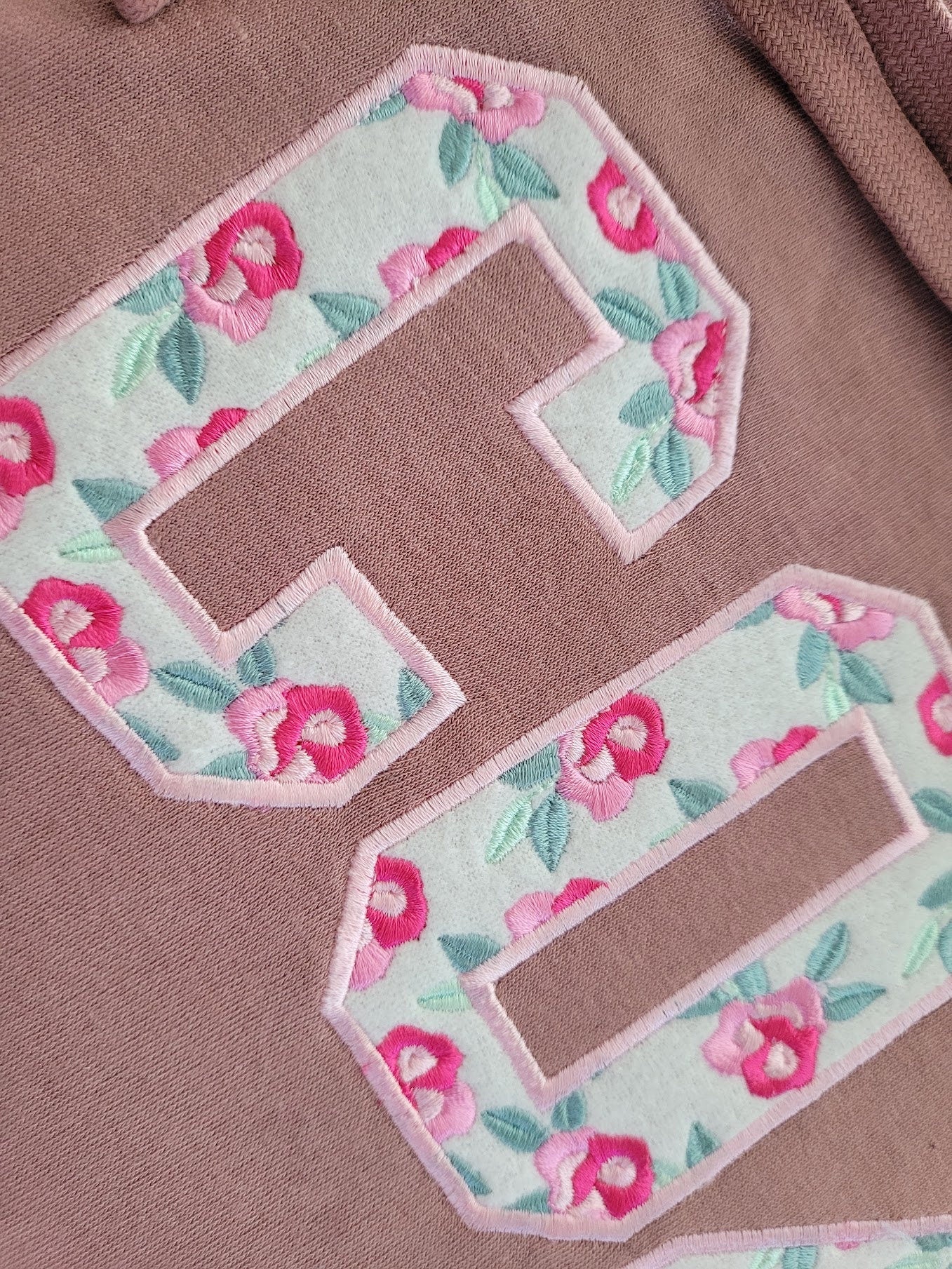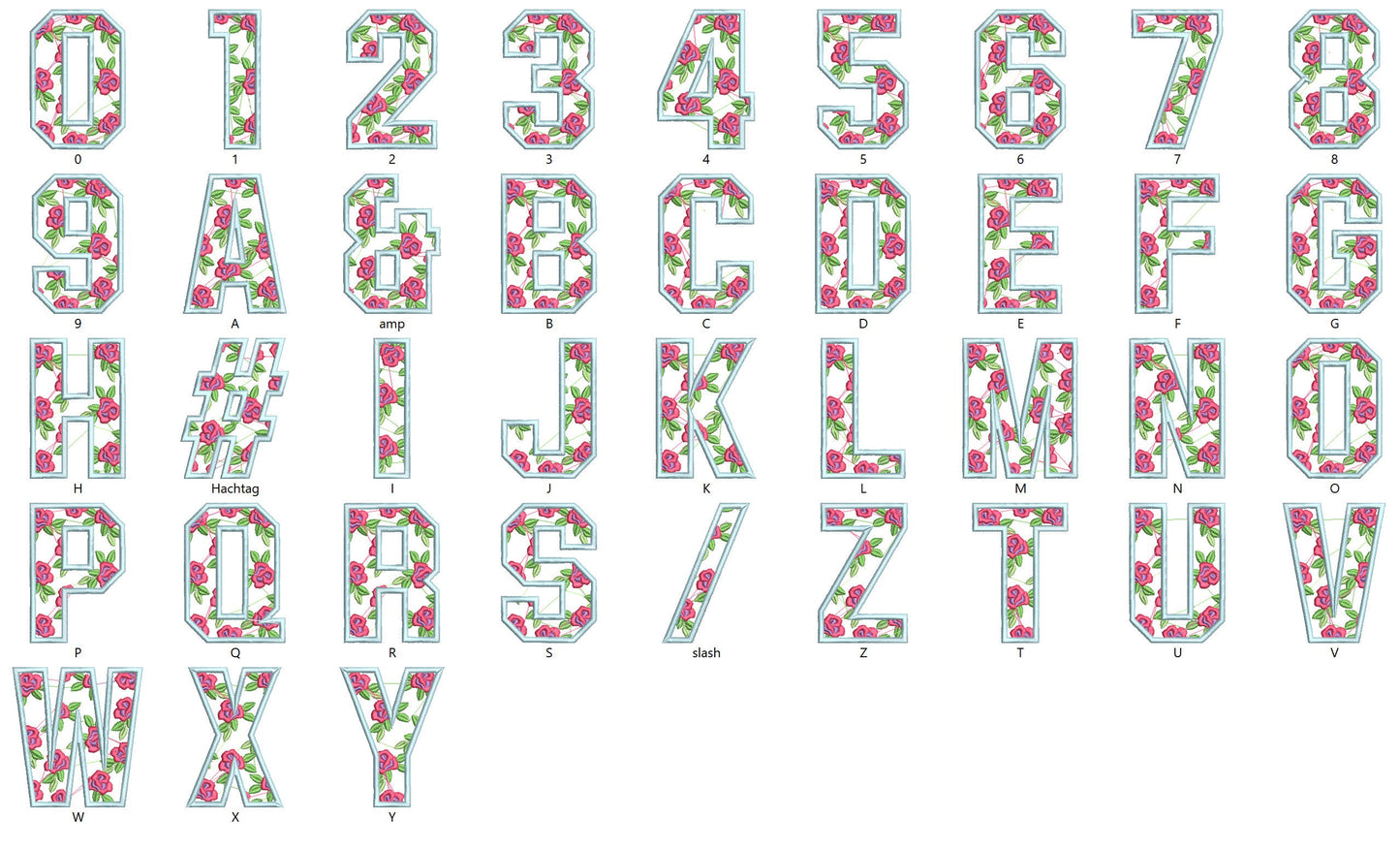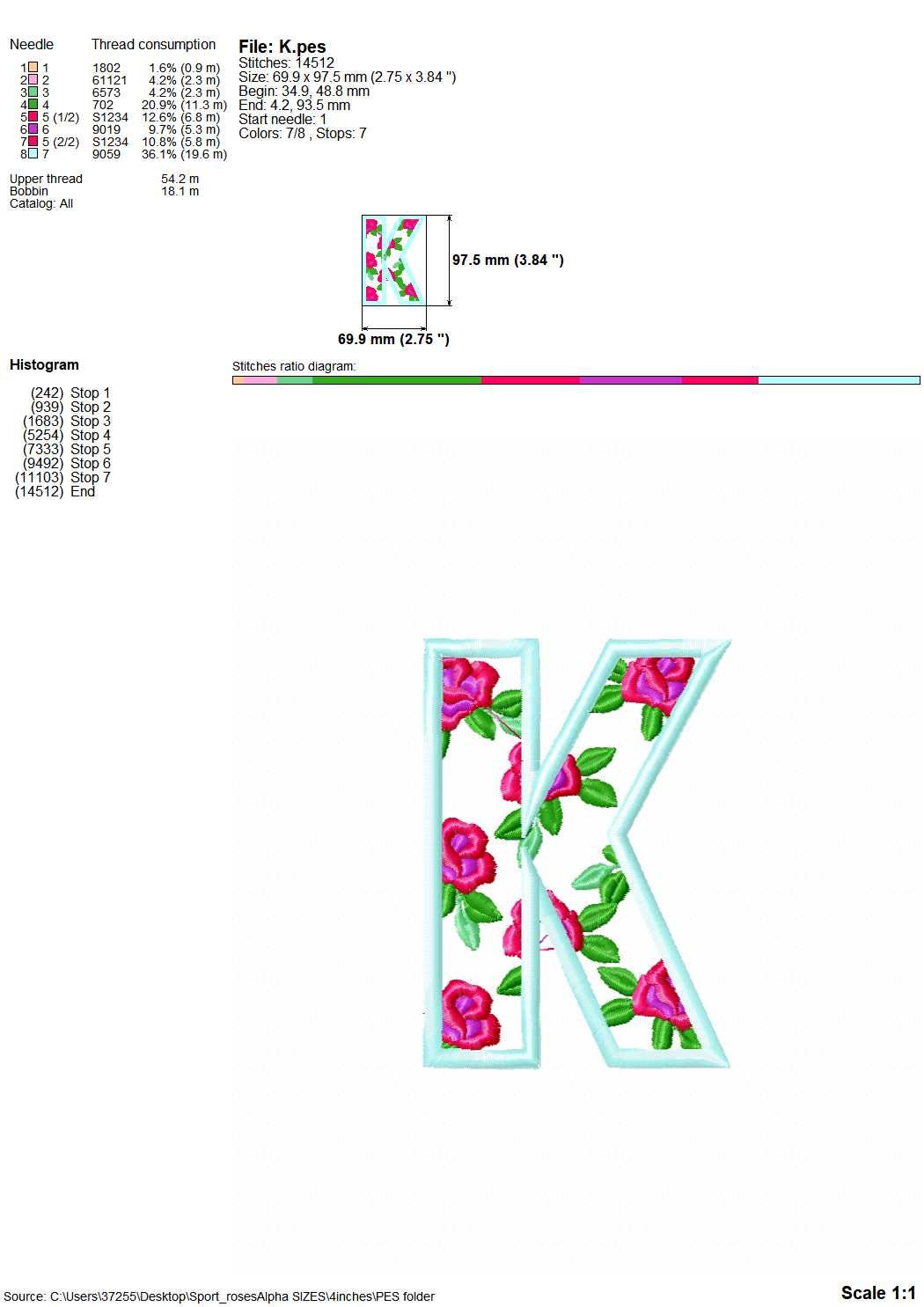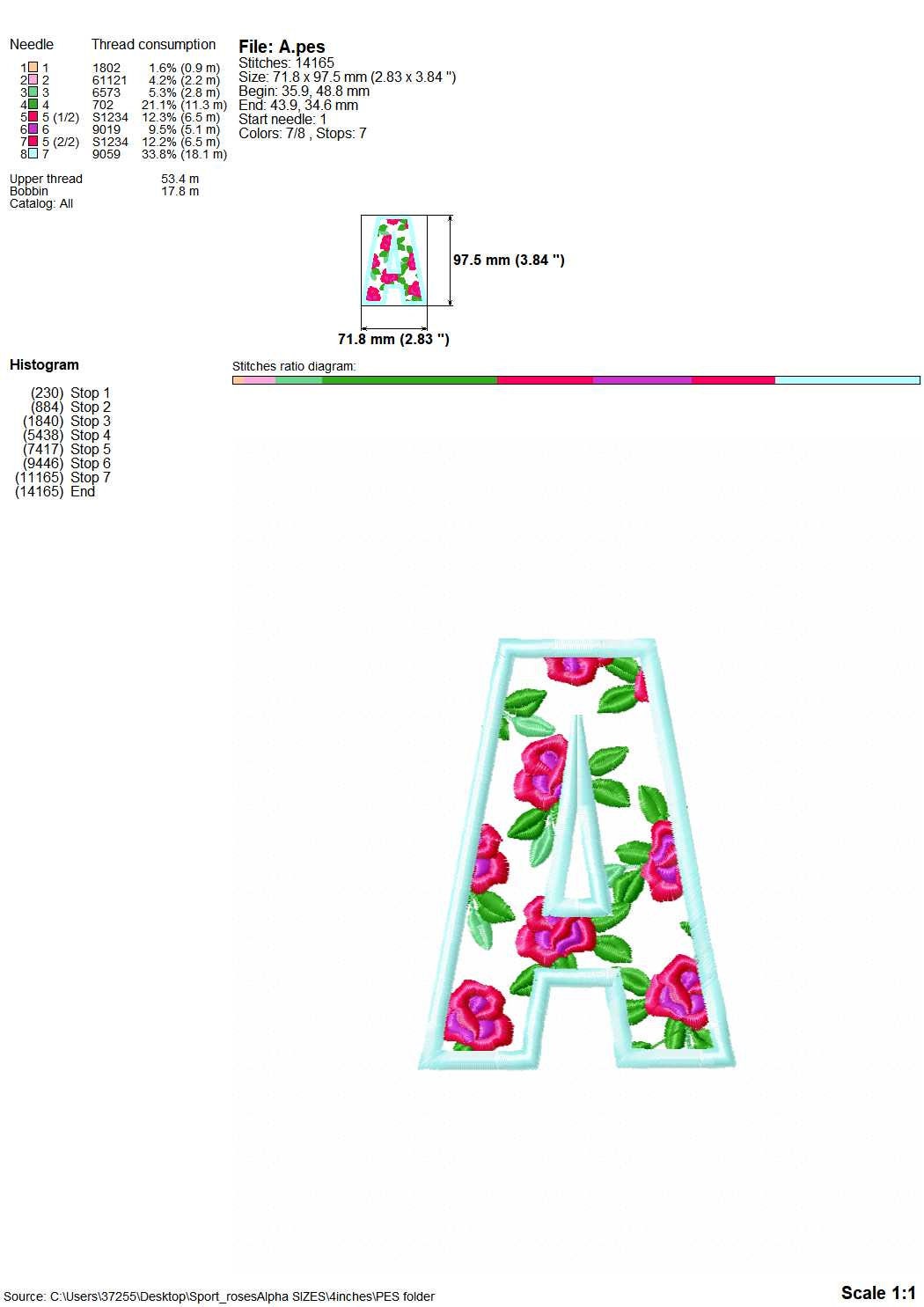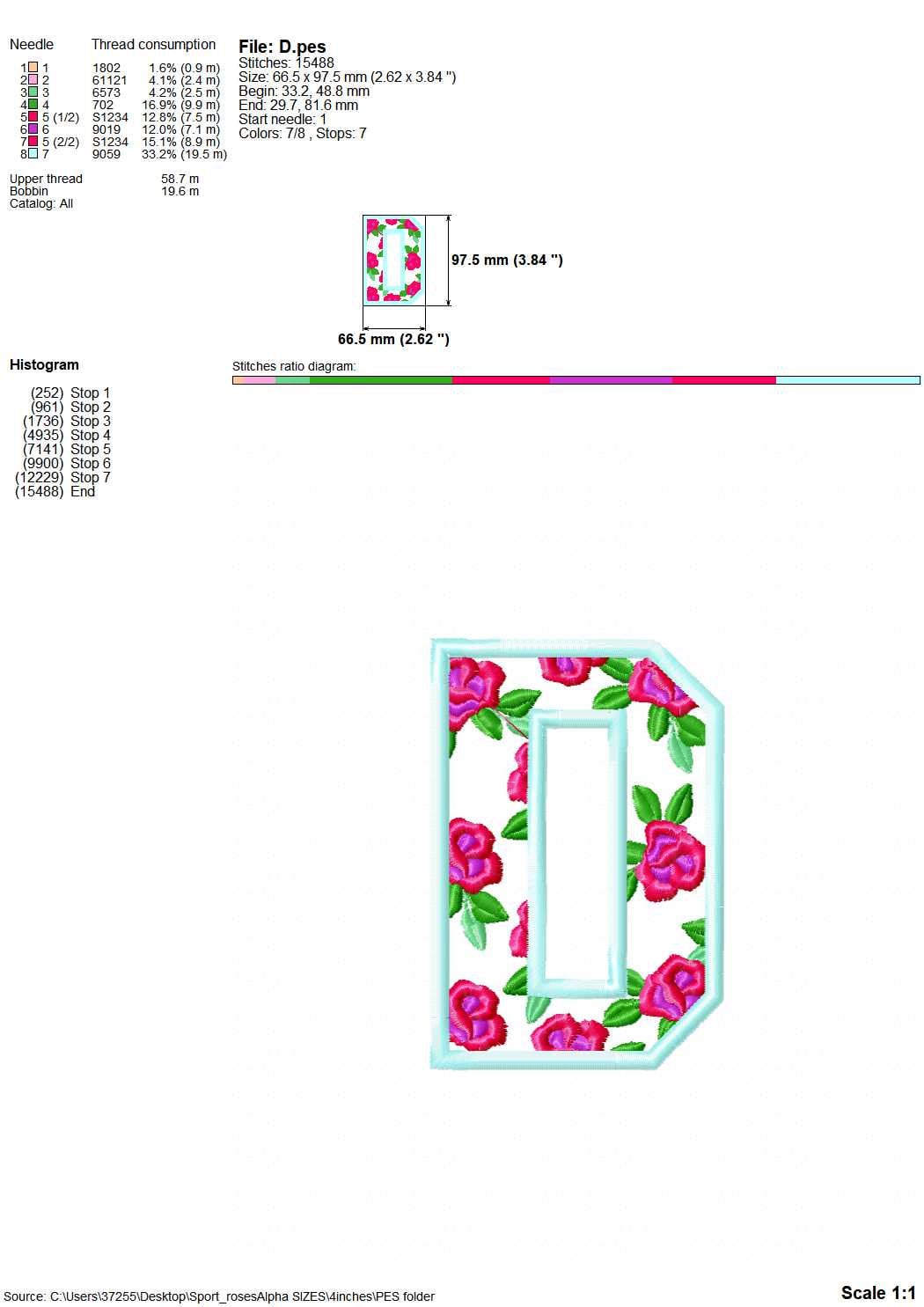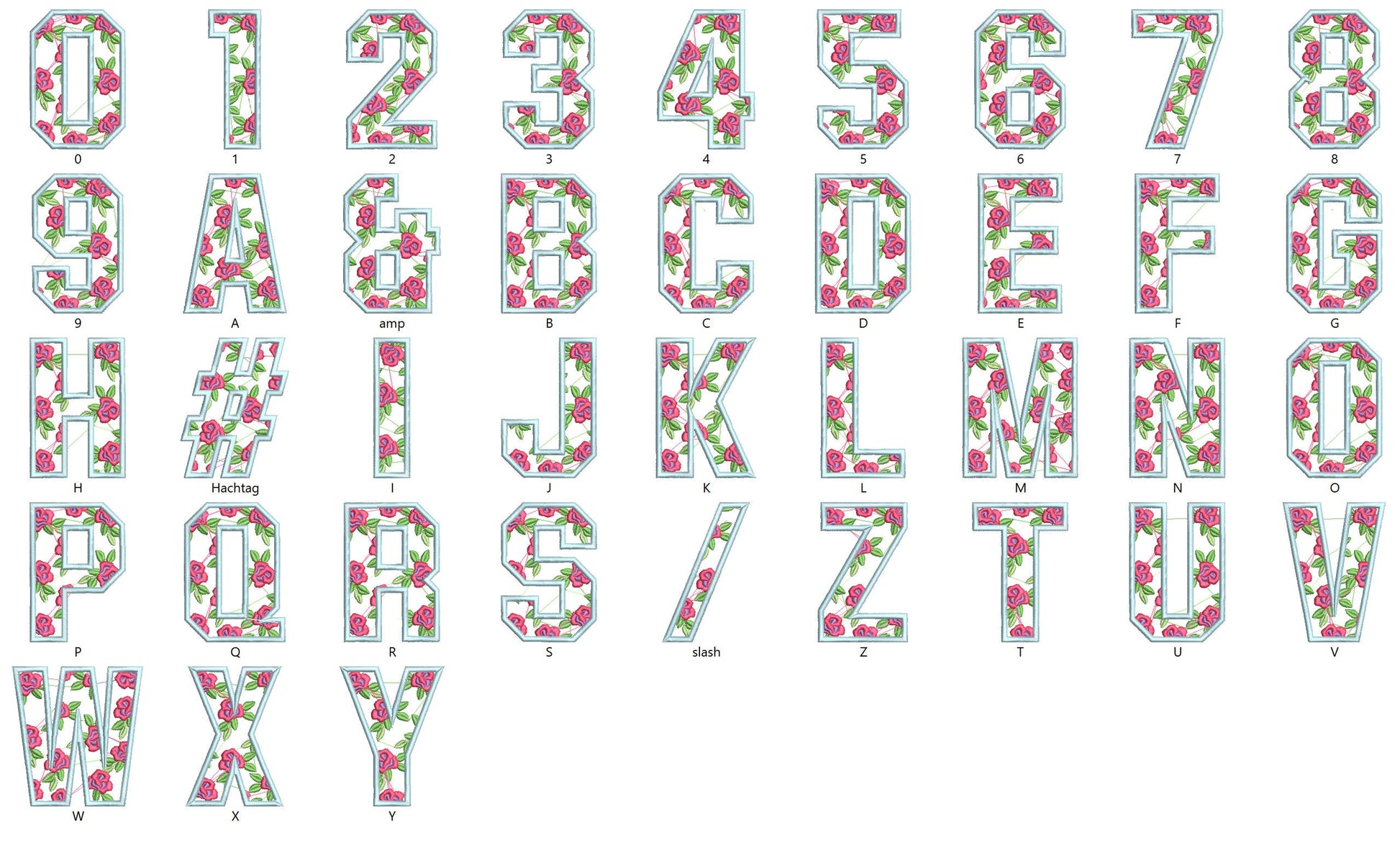
Girly Sport Rose Font
Or click to open the linkA girly sport applique font with lace-look roses, for team names and numbers on girls' shirts, cheer gear and bags.
The roses are part of the design. Uppercase A to Z and numbers in four sizes: 3, 4, 4.5 and 5 inches.
- Rose lace sport applique font
- Uppercase A-Z and numbers